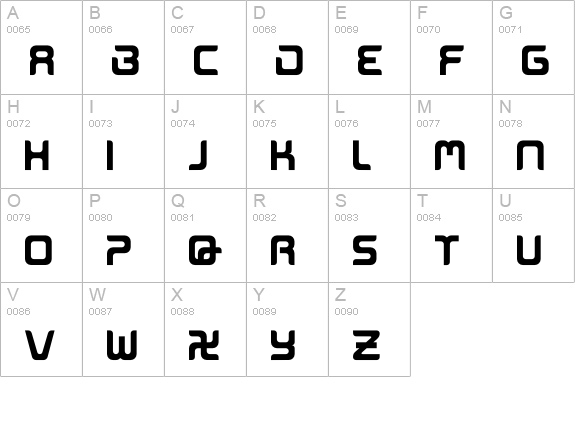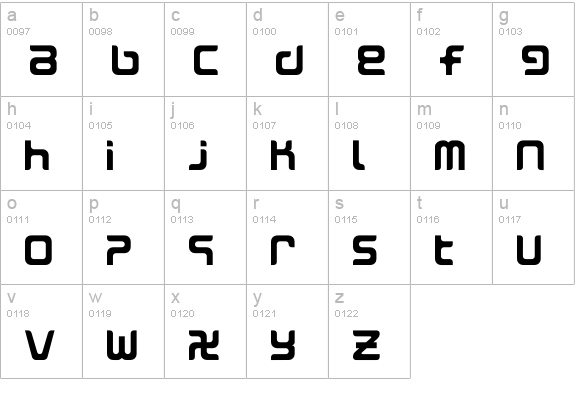
MarkingMarker-ALP Font Details
Introducing MarkingMarker-ALP, a captivating and versatile font that will elevate your design projects to new heights. With its bold and dynamic strokes, this font exudes a sense of confidence and creativity, making it the perfect choice for any project that requires a touch of modern sophistication. MarkingMarker-ALP is not just your average font; it is a work of art. Every letter has been meticulously crafted to ensure smooth and seamless readability, while still maintaining its unique and eye-catching appeal. Whether you're designing logos, posters, or social media graphics, this font will effortlessly catch the attention of your audience and leave a lasting impression. One of the best things about MarkingMarker-ALP is that it is completely free. Yes, you read that right! This stunning font is freely available to download at FontsMarket.com. We believe that great design should be accessible to everyone, and by offering MarkingMarker-ALP for free, we are empowering designers and creatives from all walks of life to create stunning visuals without breaking the bank. Downloading MarkingMarker-ALP is a breeze. Simply visit FontsMarket.com, locate the font, and with just a few clicks, it will be yours to use and enjoy in all your design endeavors. The font file is compatible with various design software, ensuring a seamless integration into your creative workflow. Whether you're a seasoned graphic designer or just starting your design journey, MarkingMarker-ALP is a must-have addition to your font collection. Its versatility and striking appearance make it suitable for a wide range of projects, from branding and advertising to invitations and web design. Let your imagination run wild and watch as MarkingMarker-ALP brings your design visions to life. So why wait? Experience the power and beauty of MarkingMarker-ALP today. Download it for free at FontsMarket.com and unlock a world of endless design possibilities. Embrace the freedom to create and let this remarkable font be your creative companion.